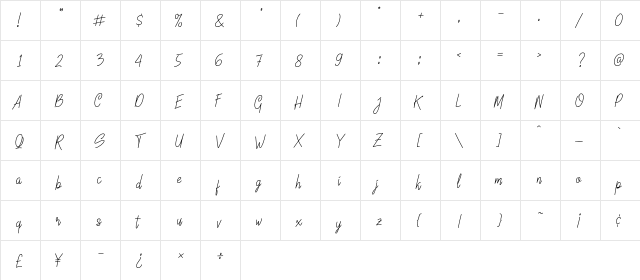
Linoleo Script Regular
| Foundry | Twicolabs Fontdation |
| Designer | Twicolabs Fontdation |
Design Context for Linoleo Script Typeface
Linoleo Script flows with the natural rhythm of handwritten lettering, making it ideal for designs that call for warmth and personal expression.
Font Pairing: Combine Linoleo Script with a simple geometric sans for maximum contrast — the tension between flowing curves and clean structure is a classic typographic pairing.
Pro Tip: Pair Linoleo Script with a clean sans-serif for supporting text. The contrast between fluid script and geometric structure creates an elegant typographic hierarchy.